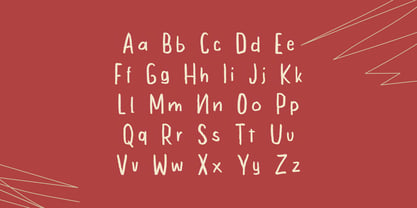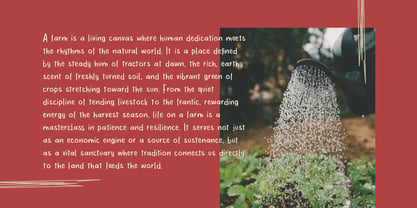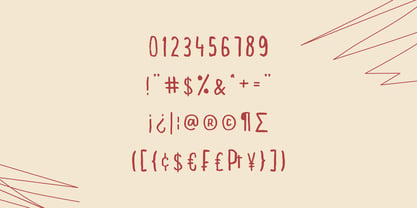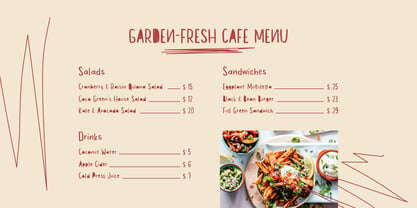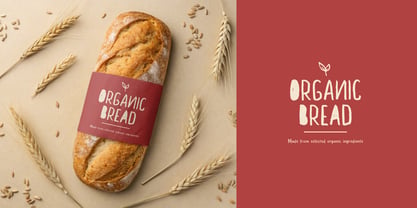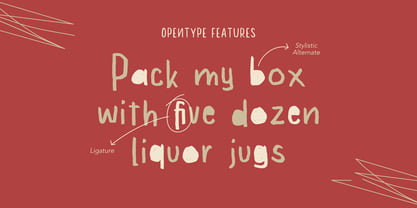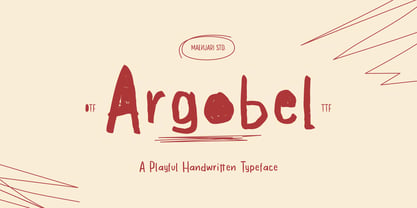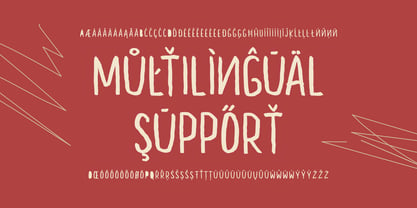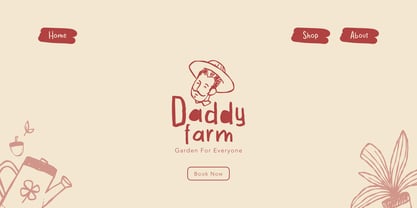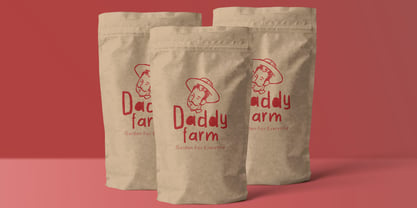
Argobel
Introducing Argobel, an organic and quirky display font designed to infuse your typography layouts with lighthearted energy and distinct character. Striking a perfect balance between high legibility and an informal, bouncy rhythm, Argobel is tailored for editorial design, dynamic packaging, and bold brand messaging. Its carefully balanced glyph weights perform exceptionally well in both display headlines and short blocks of body text.
Equipped with a robust character set, standard ligatures, and comprehensive Western European multilingual capabilities, Argobel offers professional graphic designers a highly flexible tool for publishing, casual advertising, and print media. This font family is ideal for branding, web design, and editorial projects, making it a versatile choice for any creative endeavor.